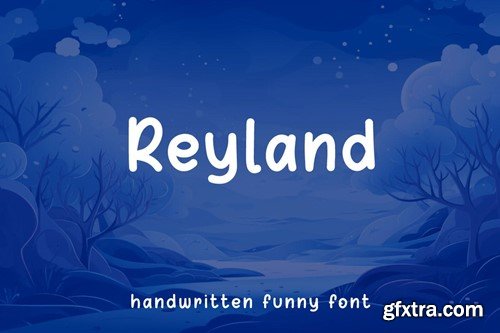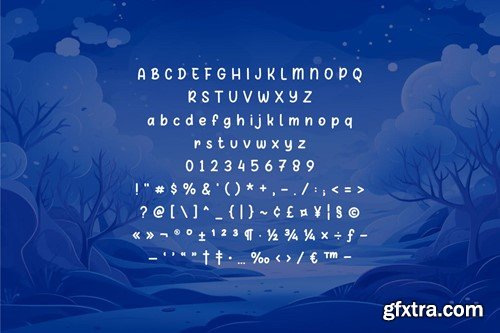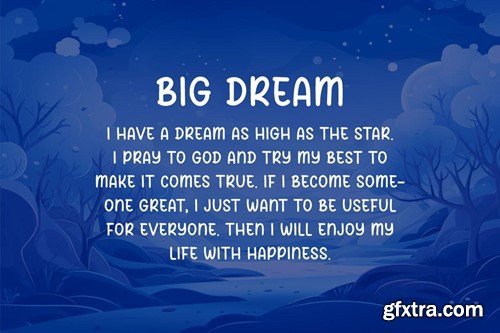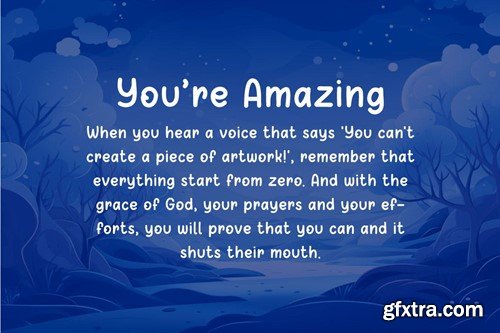
雷兰 - 手写搞笑字体 T3KGRBL
Reyland - Handwritten Funny Font
Hello! Reyland is a handwritten funny font. Reyland can be used in any works such as comic book, poster, school, flyer, book title, advertisement, social media content, logo and many more. The zip file is include: I hope you enjoy in creating something awesome using Reyland. Thank you! :)